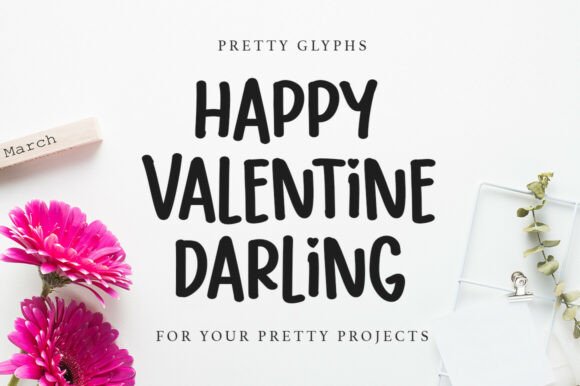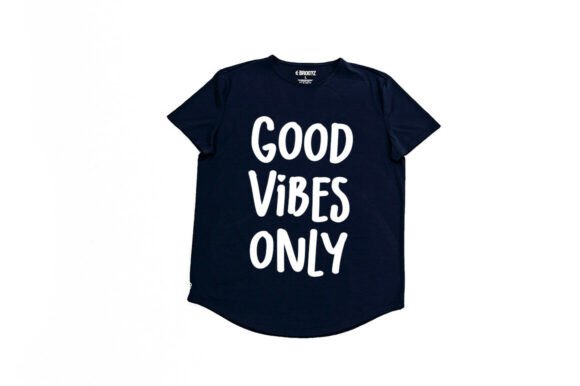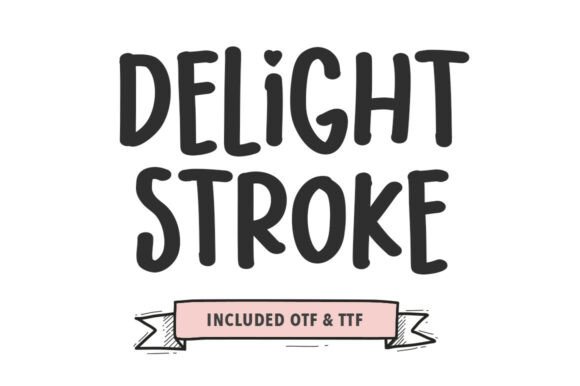
Introducing Delight Stroke Font: Unleash Your Creative Expression
In the world of typography, a font can make or break a design. For creatives seeking to add a touch of personality and authenticity to their work, Delight Stroke Font is a game-changer. This handwritten brush font is crafted to feel bold, expressive, and effortlessly stylish, making it the perfect addition to any design project.
Inspired by Real Brush Lettering
Delight Stroke Font draws inspiration from the natural, fluid strokes of real brush lettering. Each character features dynamic movement and a handcrafted texture that instantly elevates any design. The font’s unique, organic feel is reminiscent of traditional brush calligraphy, but with a modern twist that makes it perfect for contemporary designs.
A Perfect Balance of Style and Freedom
Designed for creatives who want to add a strong personality to their work, Delight Stroke Font strikes the perfect balance between casual freedom and modern aesthetics. The font’s bold, expressive strokes convey confidence and artistic flair, while its clean lines and elegant curves ensure a sophisticated, modern look.
Key Features of Delight Stroke Font
- Handwritten brush font: Crafted to feel bold, expressive, and effortlessly stylish
- Natural strokes and dynamic movement: Inspired by real brush lettering for a unique, organic feel
- Handcrafted texture: Adds a touch of authenticity and personality to any design
- Perfect balance of style and freedom: Combines casual, artistic flair with modern aesthetics
- Powerful and eye-catching: Makes your message feel confident, artistic, and unforgettable
Use Delight Stroke Font for Your Design Projects
Whether you’re working on branding, social content, or any other design project, Delight Stroke Font is the perfect choice. Its versatility and expressiveness make it suitable for a wide range of applications, from:
- Logos and branding: Create a bold, memorable brand identity with Delight Stroke Font
- Social media graphics: Add a touch of personality and style to your social media posts and stories
- Posters and flyers: Make a statement with Delight Stroke Font’s bold, eye-catching strokes
- Packaging and labels: Add a touch of authenticity and craftsmanship to your product packaging
Why Choose Delight Stroke Font?
In a world where design trends come and go, Delight Stroke Font offers a timeless, versatile solution for creatives seeking to add personality and style to their work. Here are just a few reasons why:
- Unique and authentic: Delight Stroke Font’s handcrafted texture and natural strokes ensure a one-of-a-kind look
- Highly versatile: Suitable for a wide range of design applications, from branding to social media
Delight Stroke Font is a powerful, eye-catching addition to any design project. Its unique blend of bold, expressive strokes and modern aesthetics makes it the perfect choice for creatives seeking to add personality and authenticity to their work. With its versatility, ease of use, and constant updates, Delight Stroke Font is an investment worth making for any designer or craftsperson looking to elevate their design game.